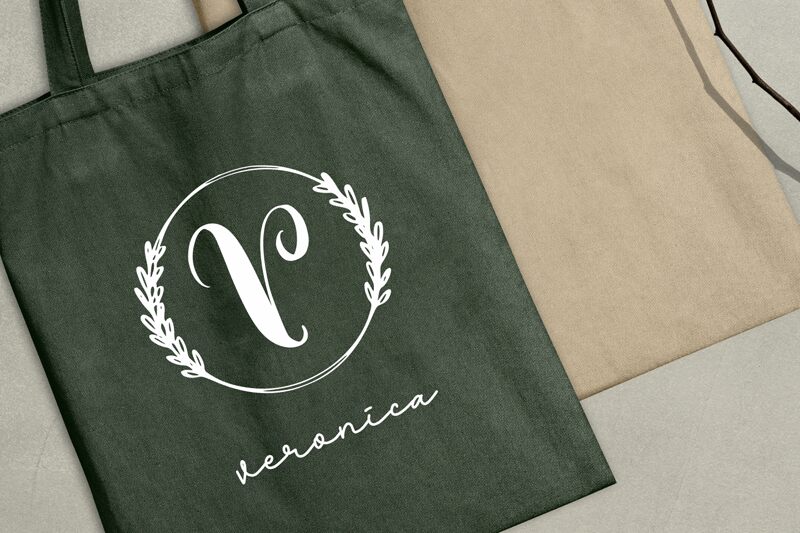
Amilie font, designed by Abo Daniel Studio, is a free fancy font with an elegant vibe perfect for fancy branding projects. Most people will find it exceptionally neatly designed and therefore ideal for projects which look like they’ve been designed by professionals. Simply yet effectively, this font communicates a signature feel, romantic and flowing spirit, and an overall sophisticated look that will leave the readers in awe.
With all the mentioned characteristics in mind, there is no doubt that Amilie is the appropriate typeface choice for logos, business cards, headlines, magazine covers, or publications. Advertisements and marketing material are also great places where it can blend, feel belong, and contribute by adding charm and personality. It’s suitable for wedding invitations, event invitations, feminine product packaging, or artistic photos captions.
AMILIE MONOGRAM